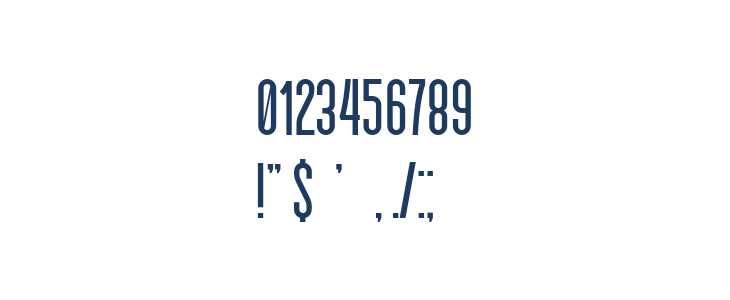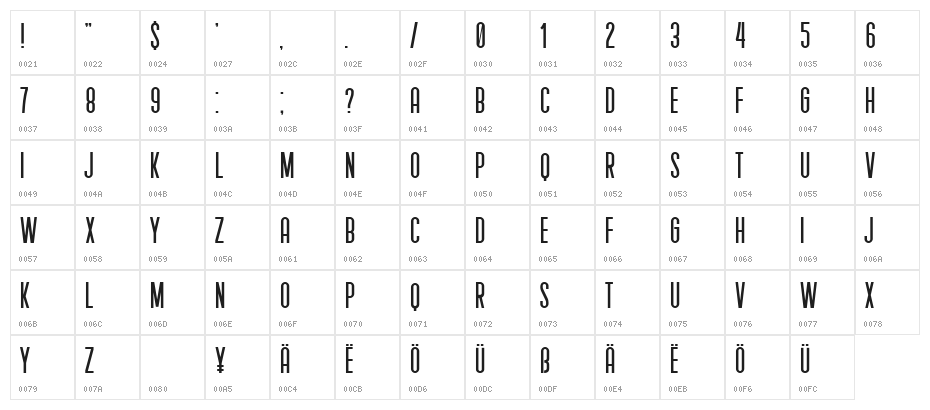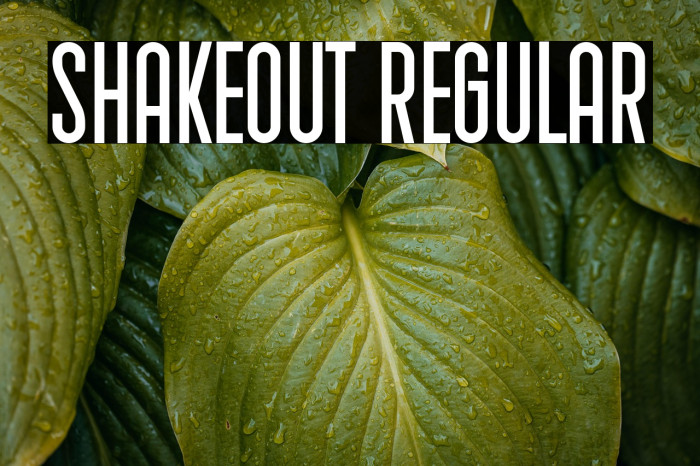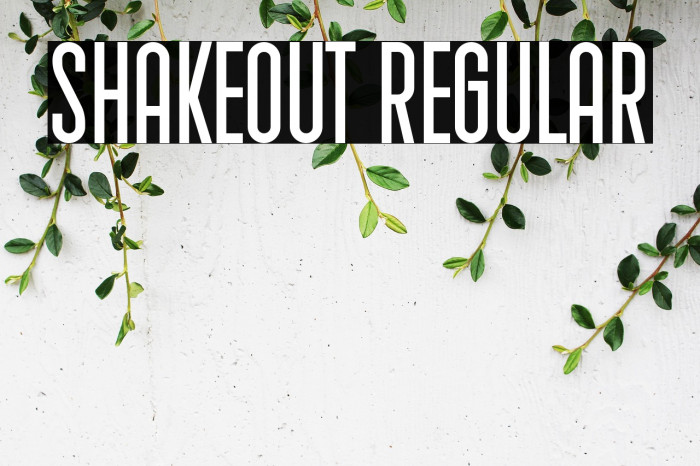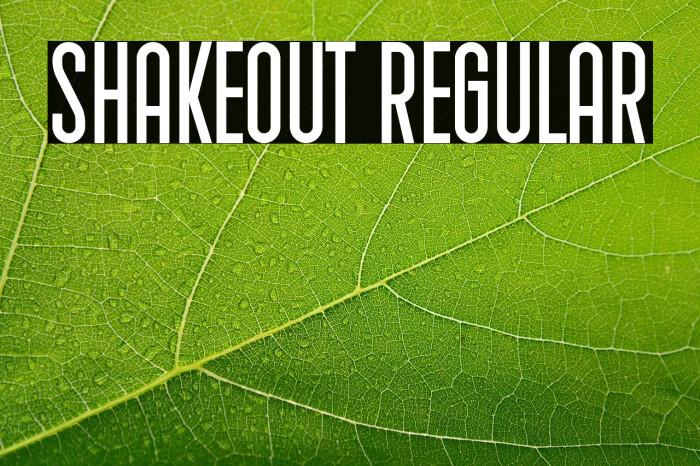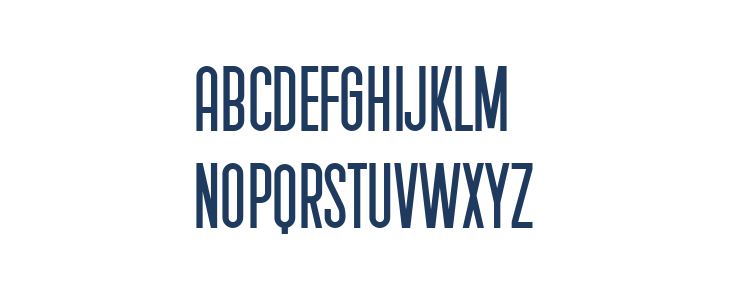
Shakeout Regular Font
Shakeout Regular Description
This font features a bold, geometric sans-serif style with clean lines and a modern aesthetic. The characters are tall and narrow, giving it a condensed appearance that maximizes vertical space. The uniform stroke width across all characters contributes to a consistent and cohesive look, making it suitable for a variety of design applications. The uppercase letters are particularly striking, with a strong presence that commands attention. The numerals and special characters maintain the same boldness and clarity, ensuring readability across different contexts.
| Proposed Projects | Ideal for headlines, posters, branding, and advertising where a strong visual impact is desired. |